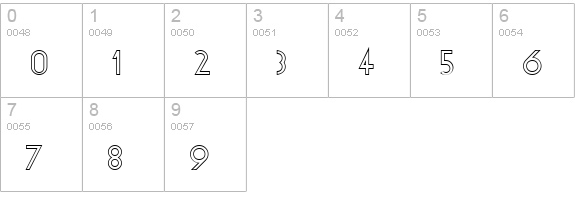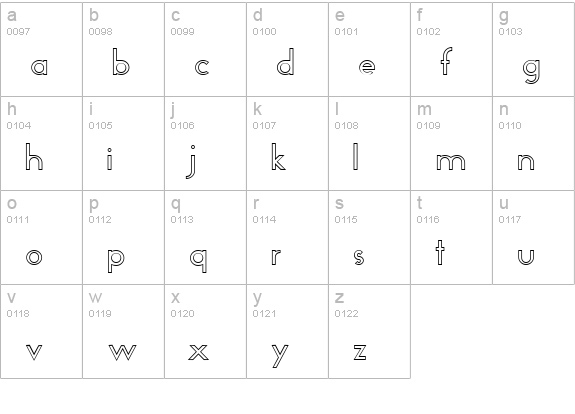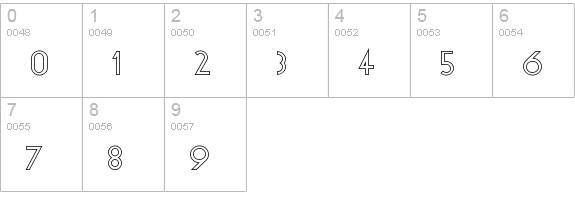
NazarethOpen Font Details
NazarethOpen is a modern and stylish font that exudes elegance and sophistication. With its clean lines and sharp angles, this font is perfect for adding a touch of refinement to any design project. The sleek and contemporary look of NazarethOpen makes it ideal for use in a wide range of applications, from branding and advertising to web design and packaging. What sets NazarethOpen apart is not only its aesthetic appeal but also the fact that it is completely free to use. That's right, this high-quality font is freely available to download at FontsMarket.com, making it accessible to designers of all levels. Whether you're working on a personal project or a professional endeavor, NazarethOpen is sure to elevate your work and leave a lasting impression. Don't miss out on the opportunity to enhance your designs with the elegance and versatility of NazarethOpen. Download this exceptional font today and take your creative endeavors to the next level.